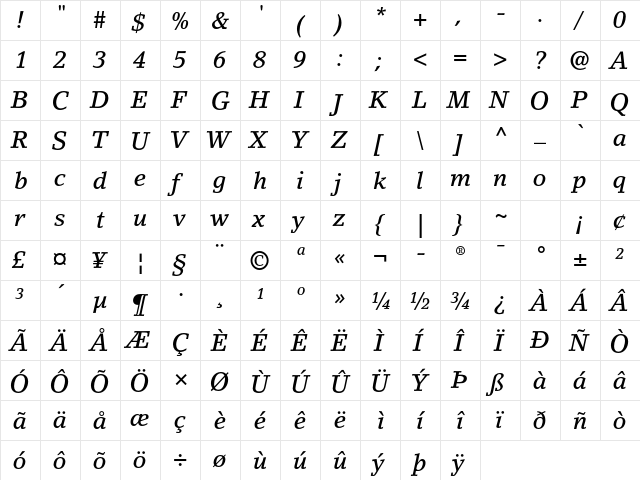
LinoLetter Std Medium Italic
| Designer | Reinhard Haus, Andre G߲tler |
Design Context for LinoLetter Std Typeface
LinoLetter Std takes a measured approach to typography — its balanced proportions and neutral character make it a reliable workhorse for both digital and print work. The slanted form adds forward momentum and visual energy.
Pro Tip: Use LinoLetter Std for emphasis, pull quotes, and subheadings where its slanted energy can add rhythm to the layout.